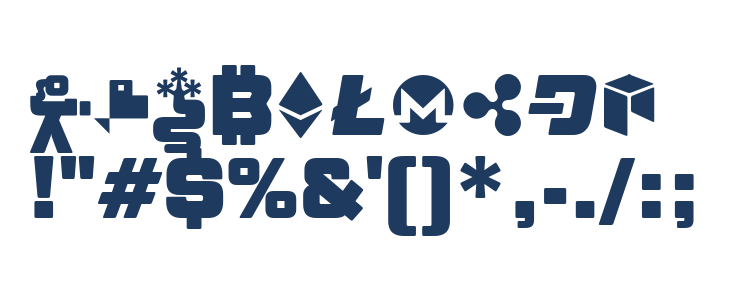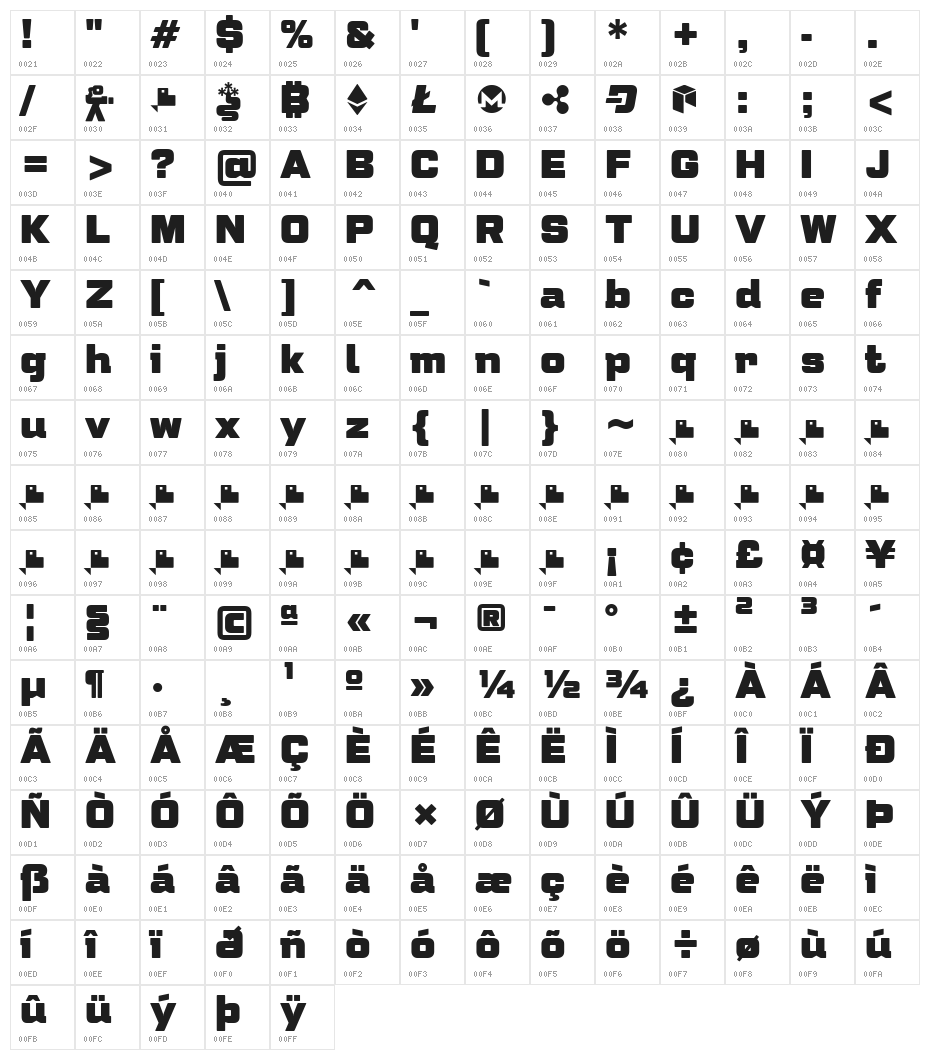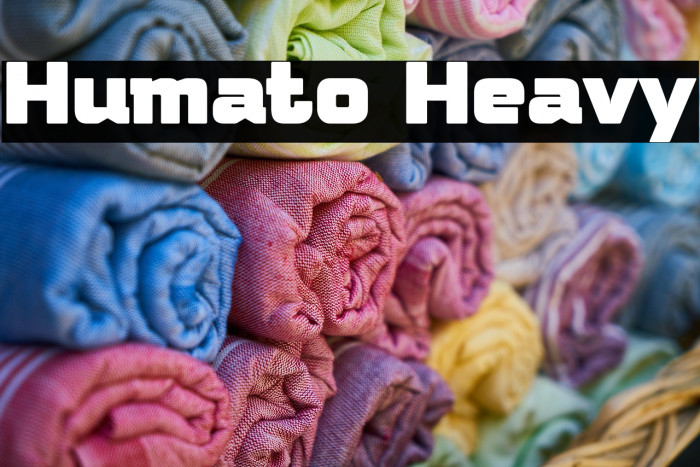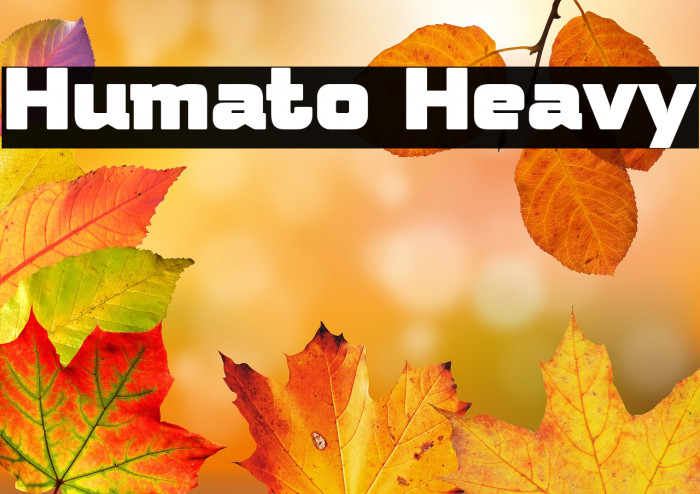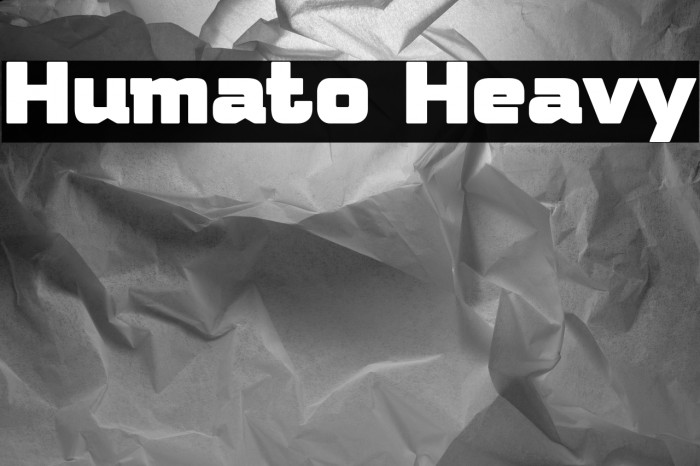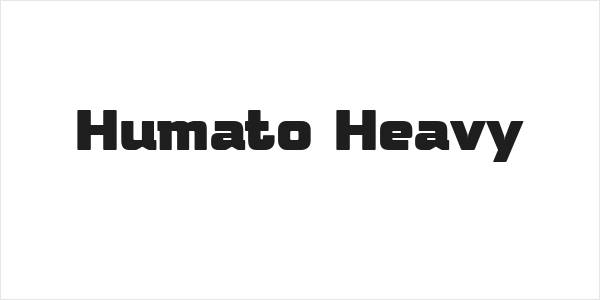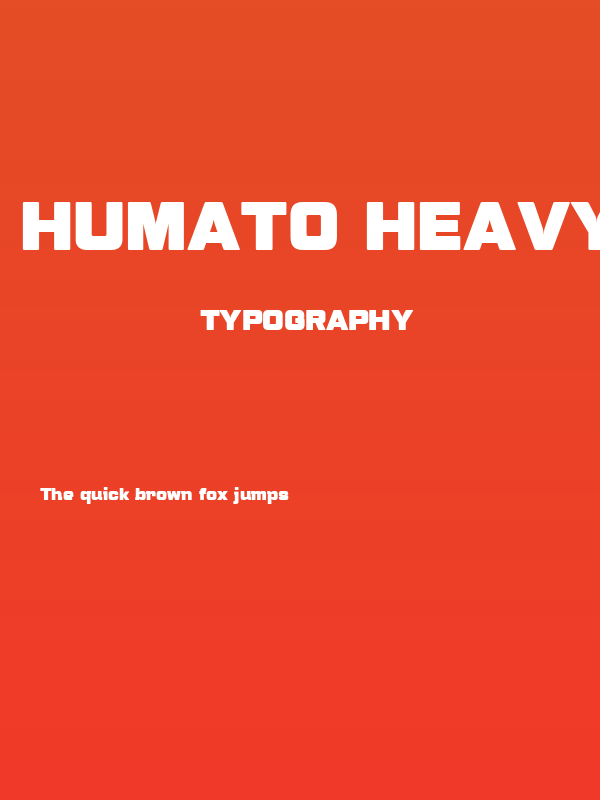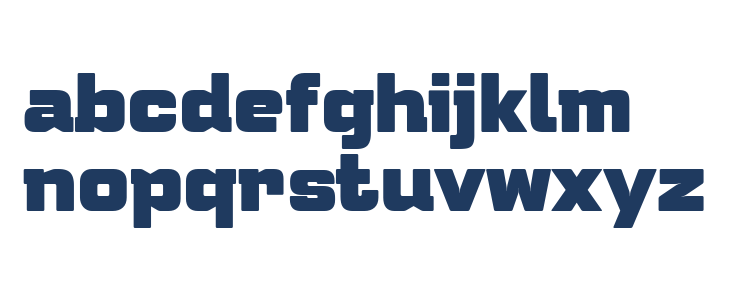
Humato Heavy Font
Humato Heavy Description
This font exhibits a bold, heavy style with strong geometric shapes and a modern aesthetic. The uppercase and lowercase letters are uniformly thick, giving a robust and impactful appearance. The characters are well-defined with sharp edges, contributing to a sense of strength and stability. The font includes a variety of special characters and symbols, maintaining the same boldness and clarity. Its design is suitable for making a strong visual statement, with a focus on readability and presence.
| Proposed Projects | Ideal for branding, advertising, posters, and headlines where a strong, assertive presence is needed. |